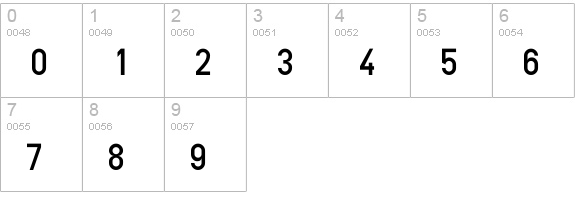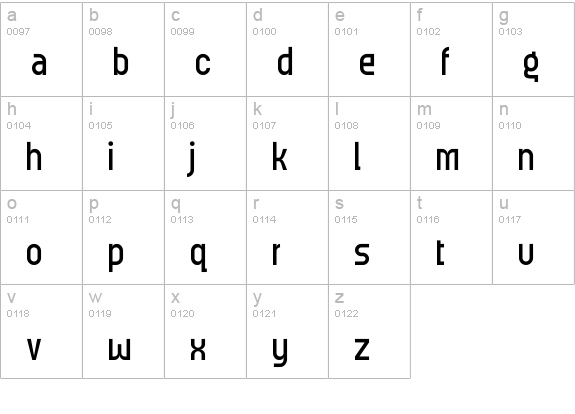
Meridiana Regular is the standard, neutral variant in the Meridiana typeface family \xE2\x80\x94 well suited to general body text, paragraphs, and standard typographic work.
Meridiana Regular font is a versatile and elegant typeface that exudes sophistication and modernity. With its clean lines and balanced proportions, this font is perfect for a wide range of design projects, from branding to editorial design. The timeless appeal of Meridiana Regular makes it a great choice for both print and digital applications. Moreover, the best part is that Meridiana Regular font is available for free download at FontsMarket.com. This means you can easily access this premium font and use it in your projects without breaking the bank. Don't miss out on this opportunity to enhance your designs with the timeless beauty of Meridiana Regular font. Download it now and elevate your design game to the next level!